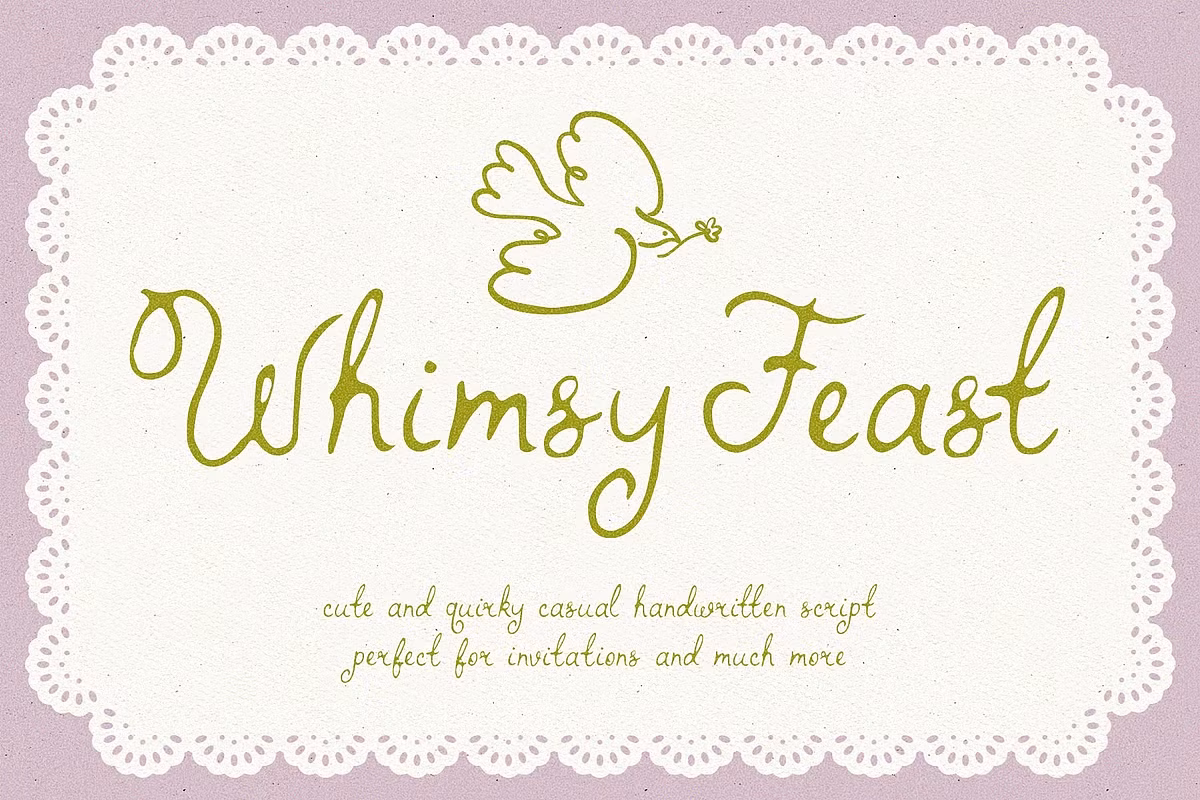
Whimsy Feast Whimsical Wedding Font Free Download is a playful and romantic script typeface designed with weddings, invitations, and celebration-themed projects in mind. Featuring elegant, flowing curves and charming letterforms, this font adds a whimsical and personal touch to any design.
Perfect for wedding invitations, save-the-dates, logos, and event stationery, Whimsy Feast brings a dreamy, elegant feel to your typography. Its organic style evokes a sense of love, joy, and festivity, making it ideal for any design project that needs a touch of whimsy and sophistication.
Add a romantic, whimsical touch to your designs with Whimsy Feast Whimsical Wedding Font Free Download, and bring your wedding projects to life with elegance and charm. Perfect for designers creating beautiful, personalized typography.